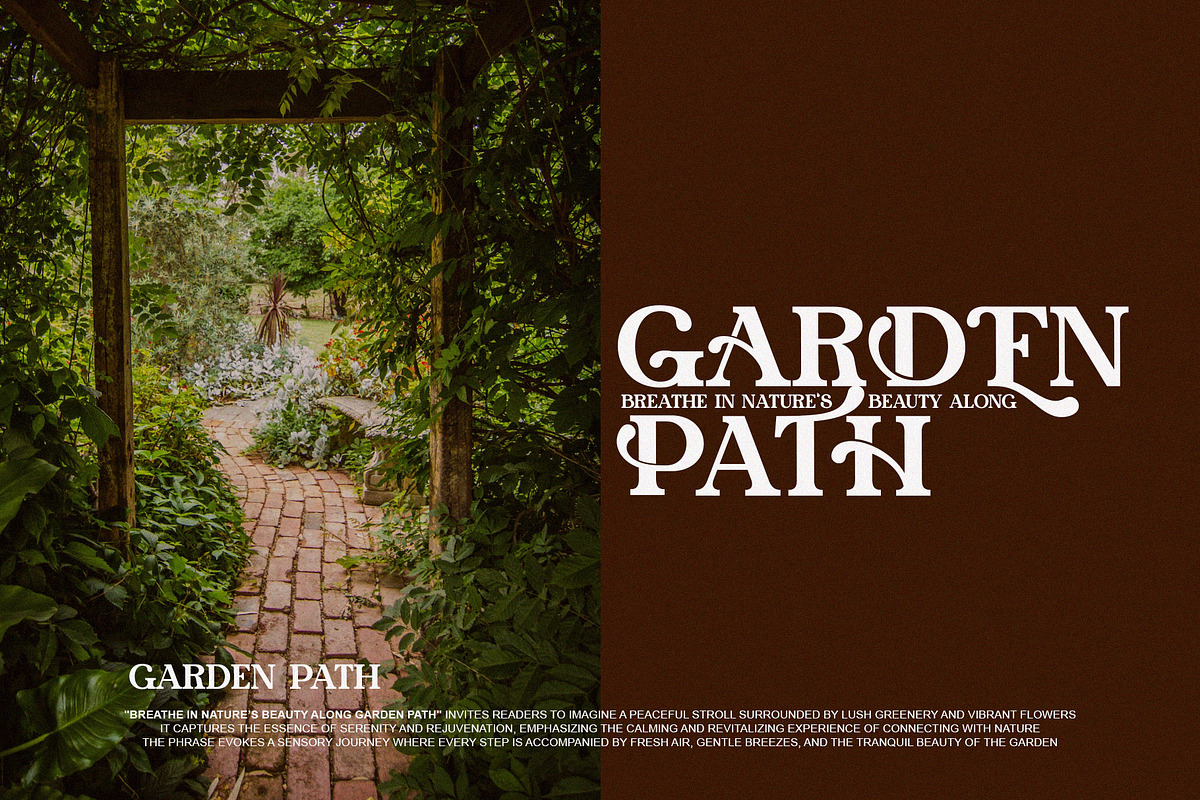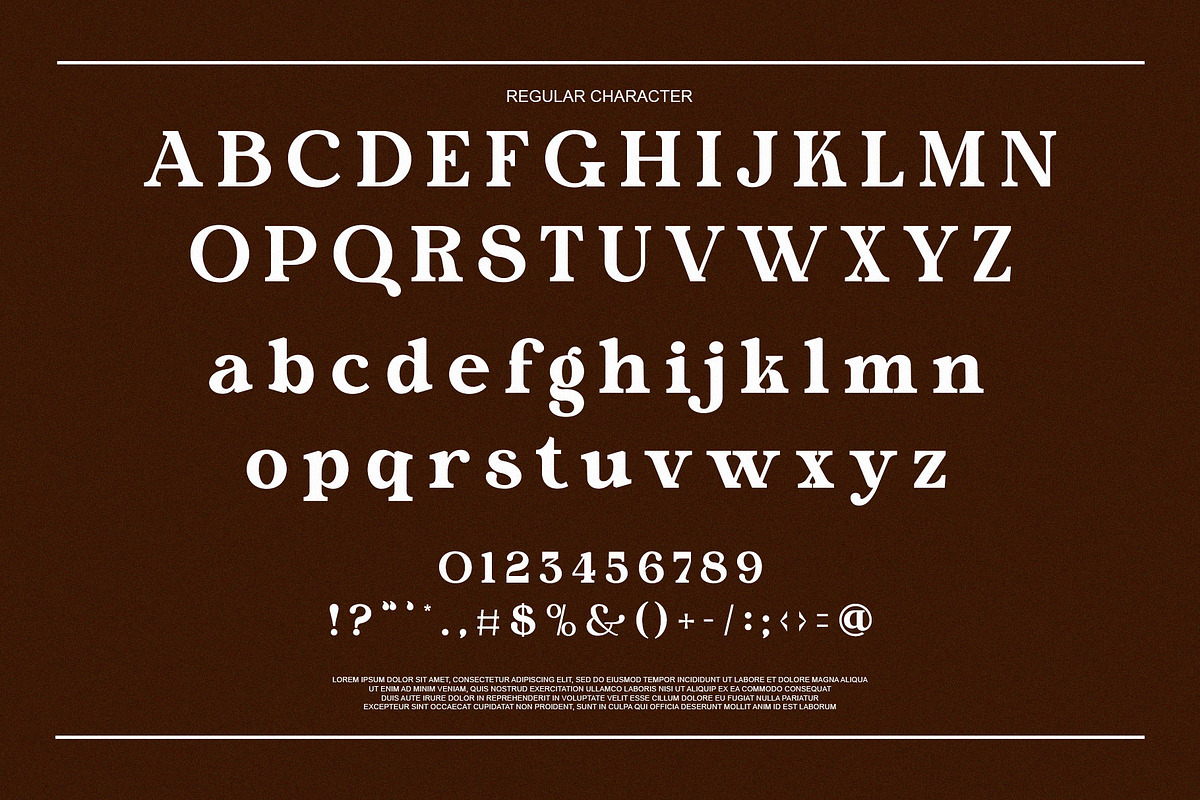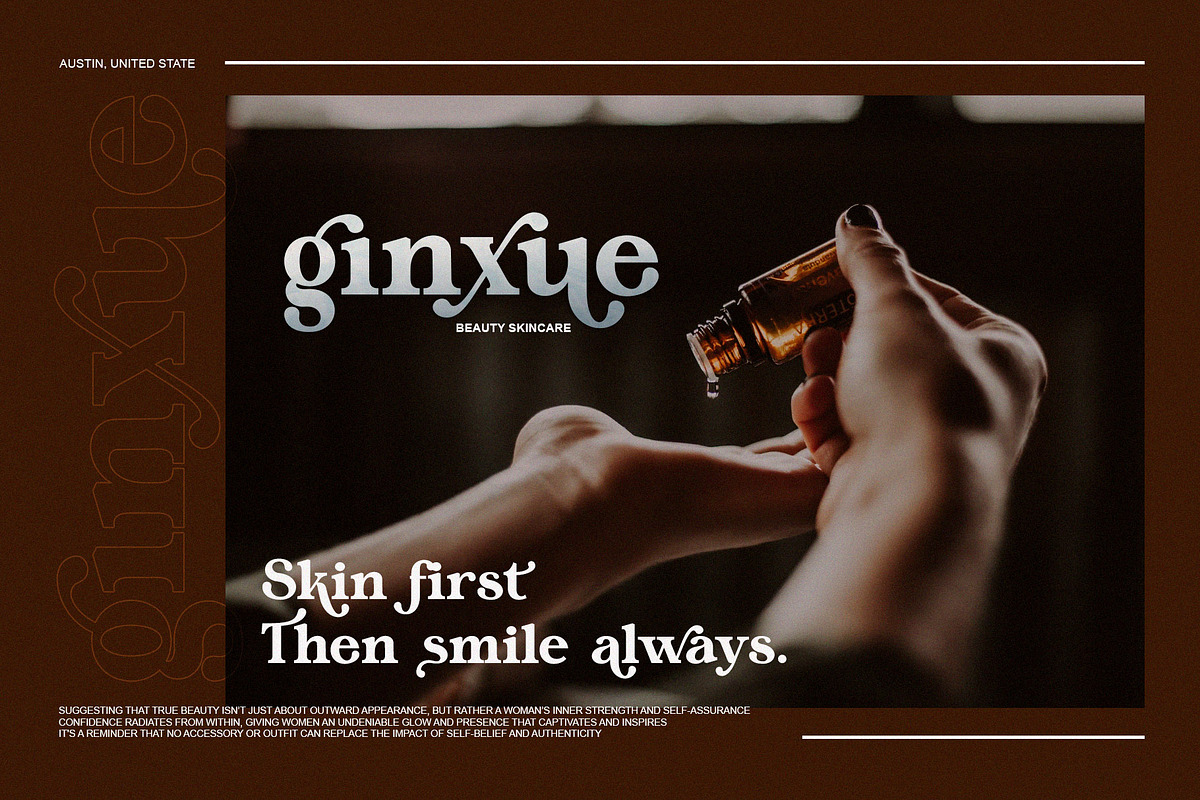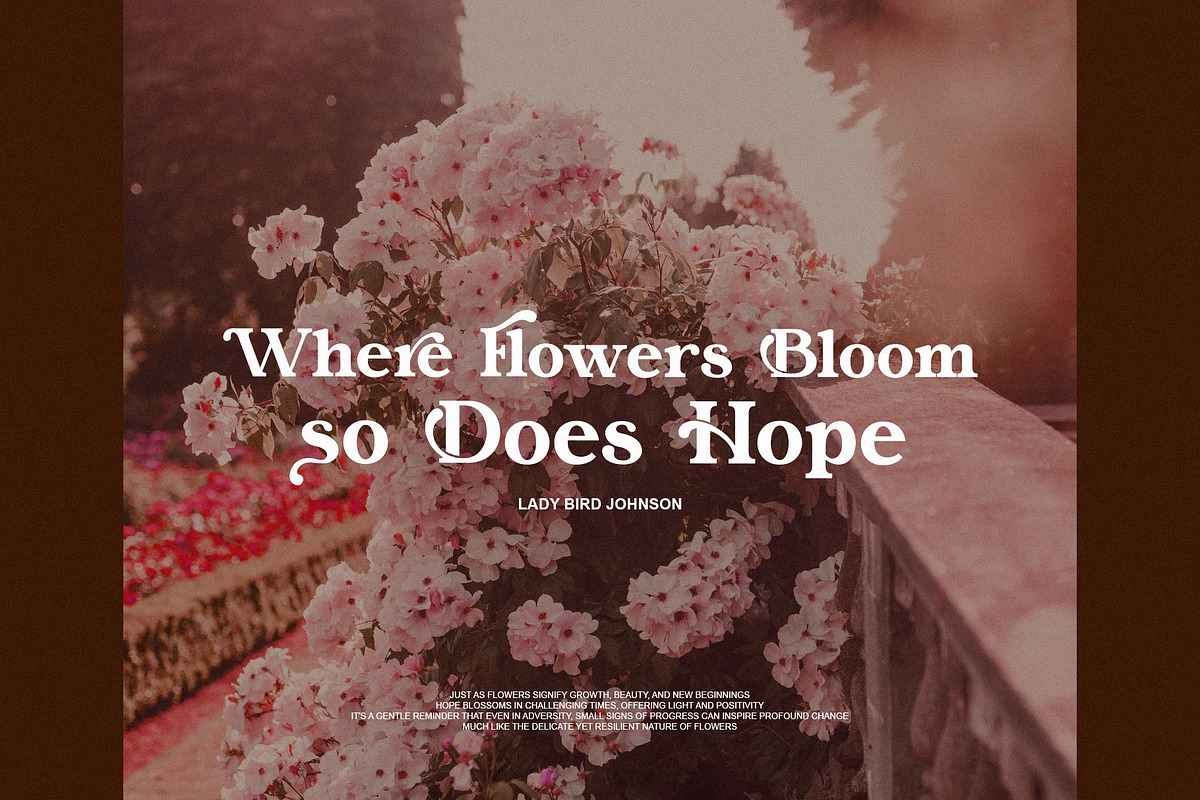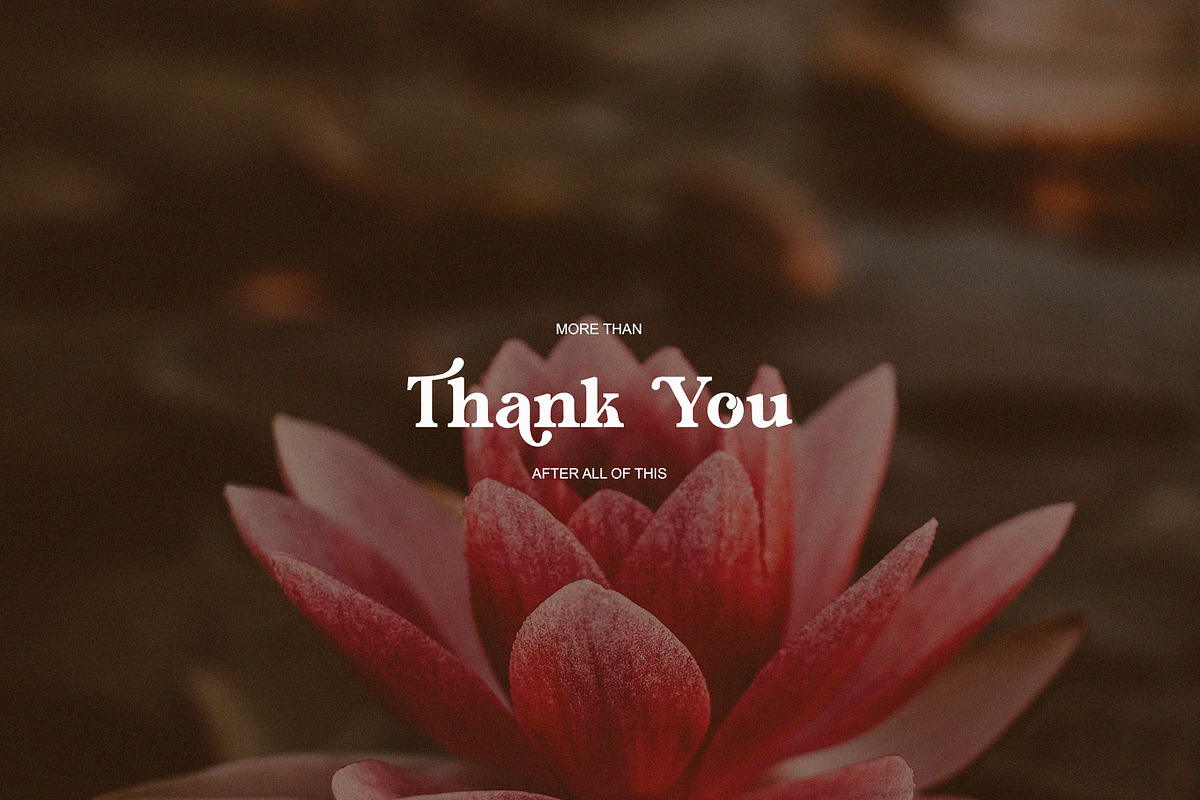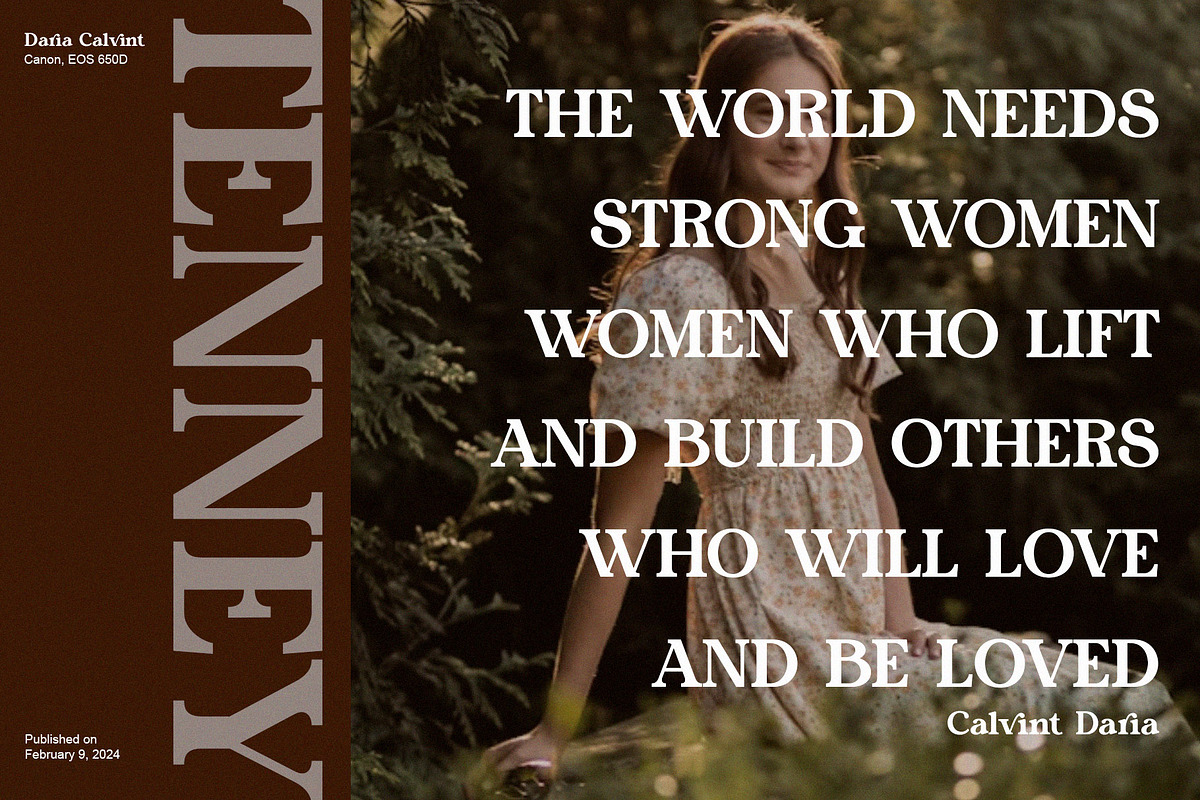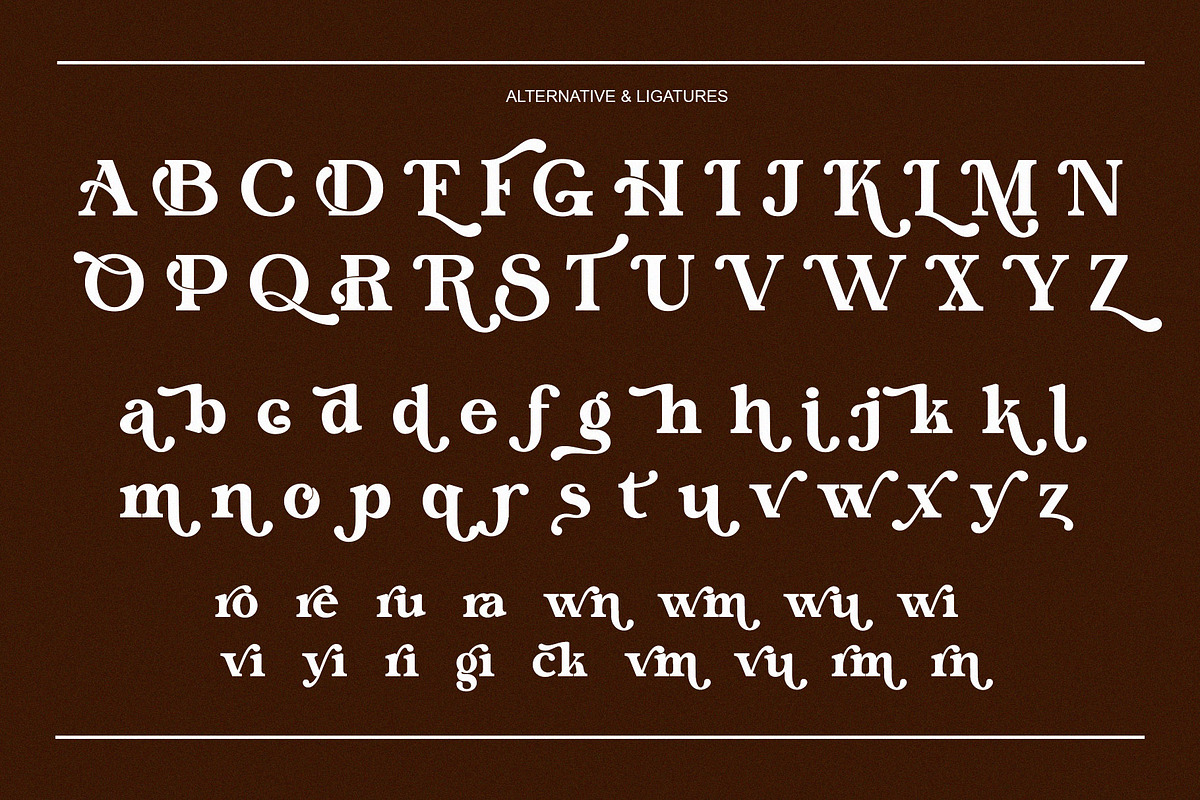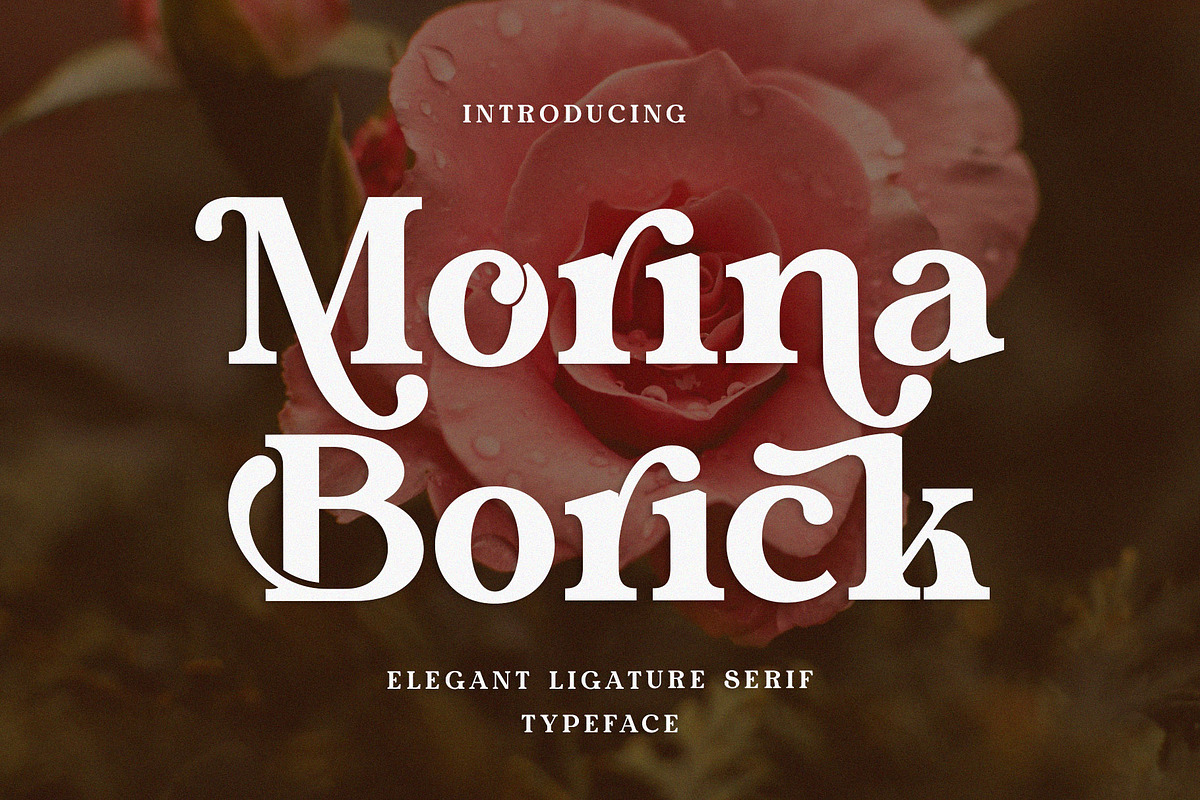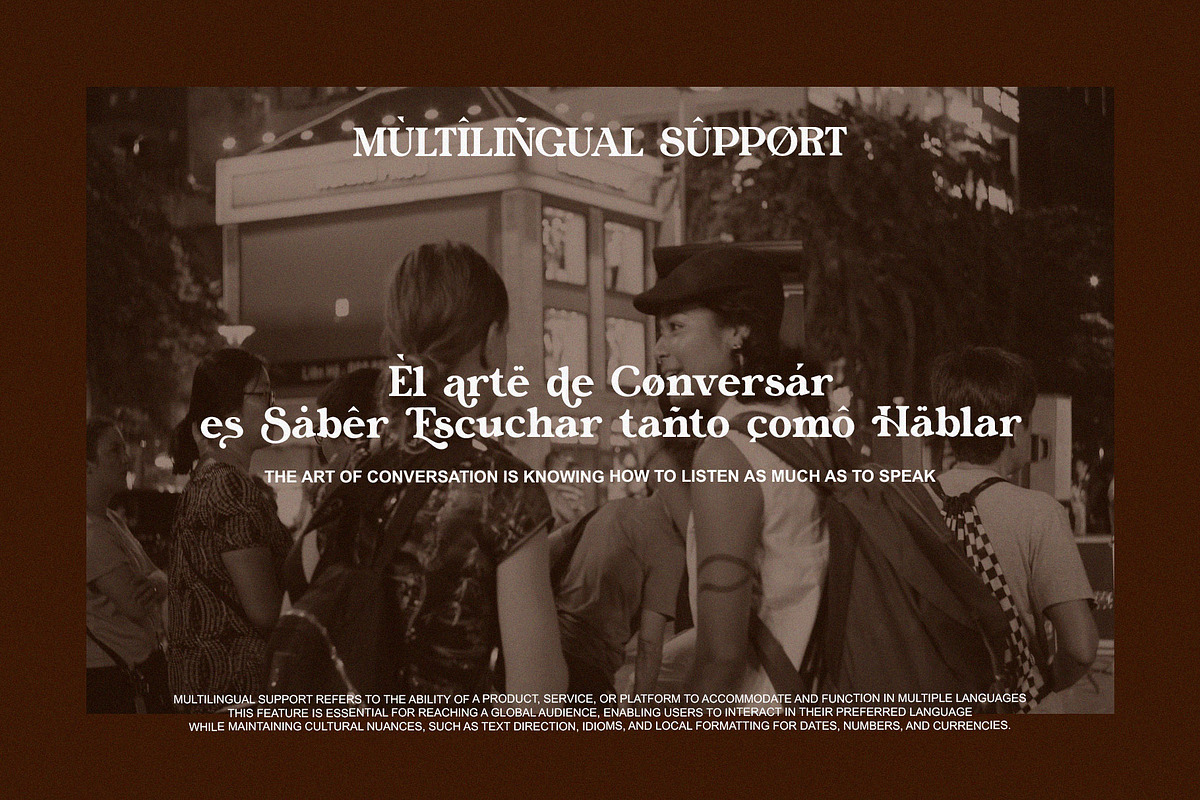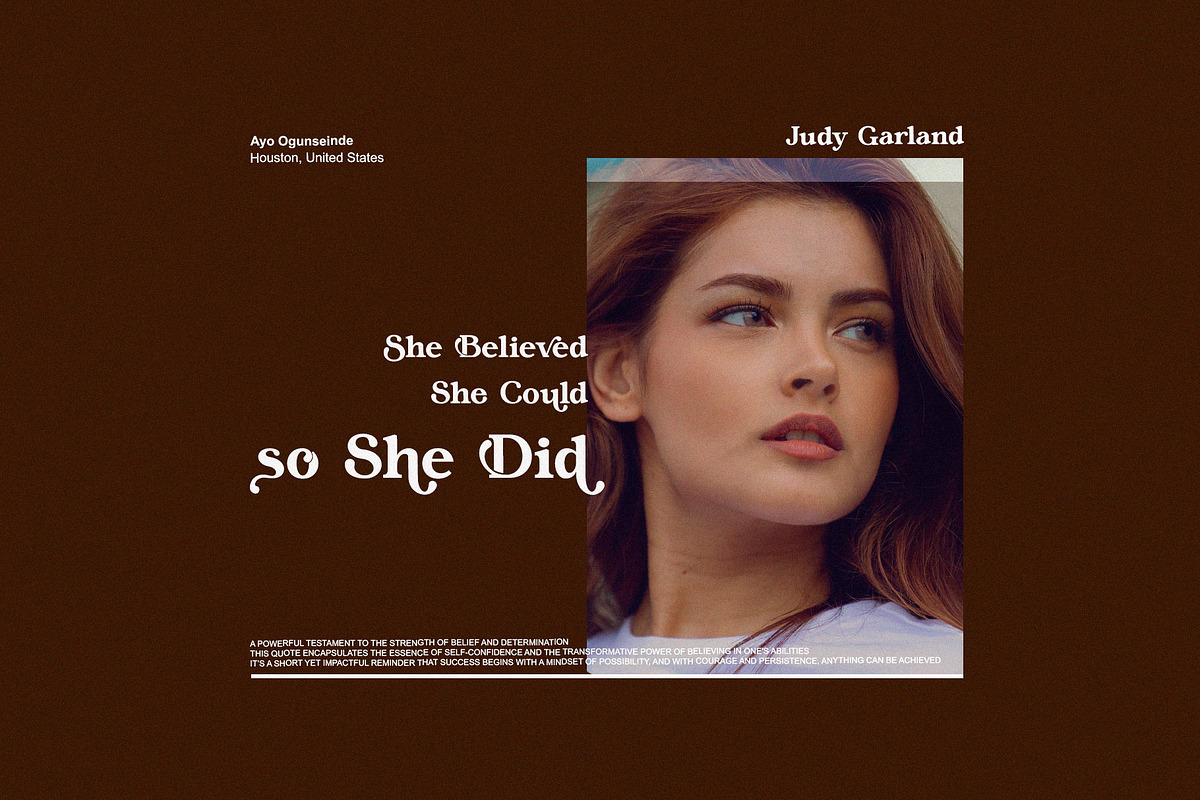
Morina Borick Elegant Ligature Serif
Morina Borick an elegant ligature serif modern font that evokes the beauty of fresh blooms and timeless elegance. With its bold yet refined ligatures, Morina Borick stands out as a sophisticated and feminine typeface. Perfect for upscale designs, whether for florals, fashion, or high-end branding, Morina Borick pairs the charm of classic serif styles with a modern twist. Every letter feels intentional, with a soft and graceful presence that elevates any project it touches.
Bring a touch of refinement and natural grace to your work with Morina Borick. Let this font breathe elegance into your designs, and watch them flourish with style and character.